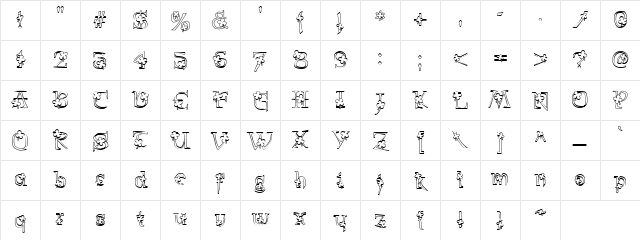
DJ Shamrock Regular Free Font
DJ Shamrock Regular
Design Context for DJ Shamrock
DJ Shamrock is a composed and adaptable typeface that performs quietly and consistently across a wide range of design contexts.